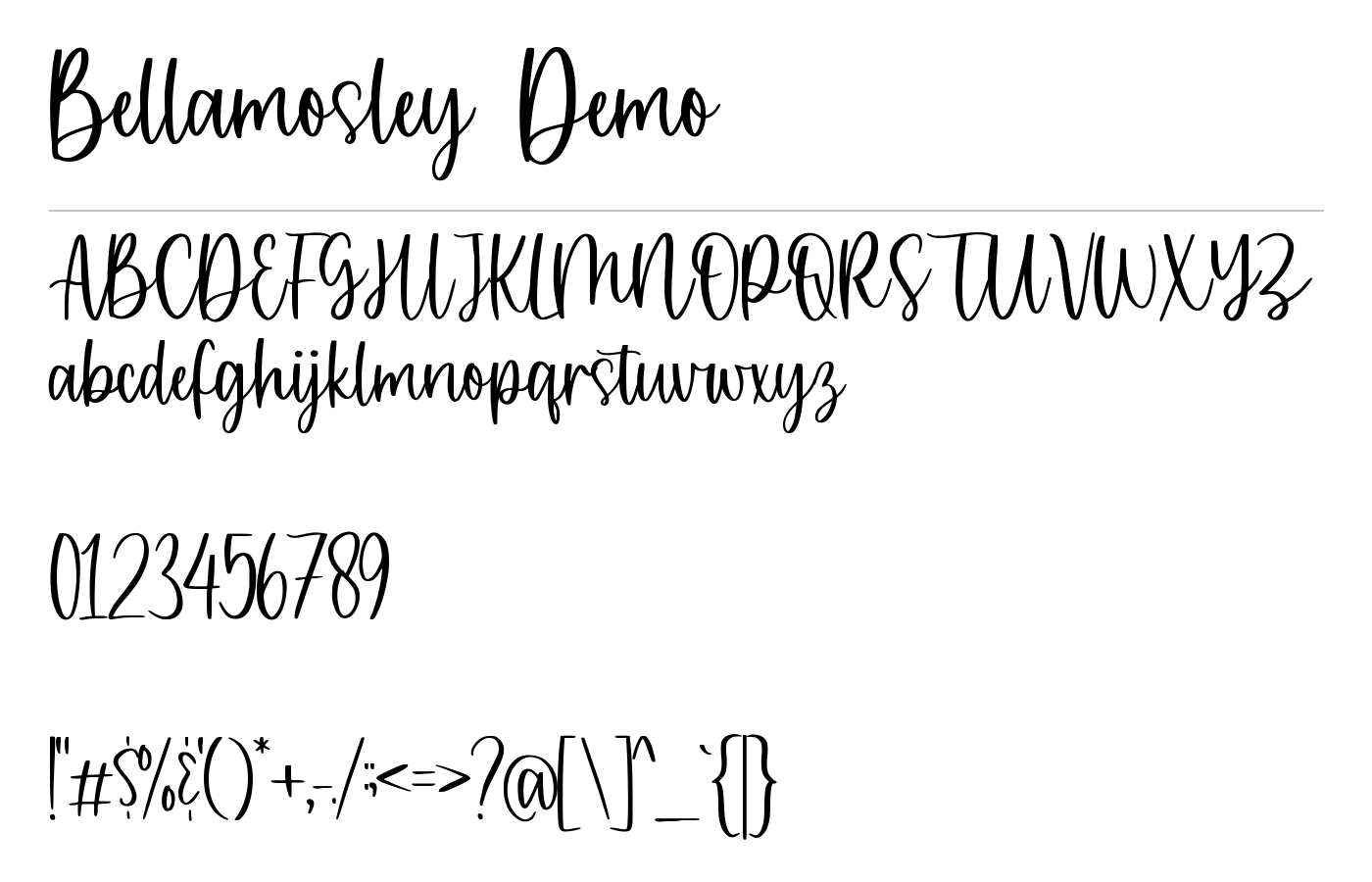
Bellamosley Demo is a playful and elegant handwritten script font featuring tall, slender letterforms with a slightly whimsical, flowing style. Its thin strokes and casual charm make it perfect for creative projects like invitations, branding, and social media where a personal, friendly touch is desired. This font works well in headlines and decorative text, adding a stylish and approachable feel to any design.
Bellamosley Demo Font
About Bellamosley Demo Font
| Font family | Bellamosley Demo Font |
| Designer | Allouse Studio |